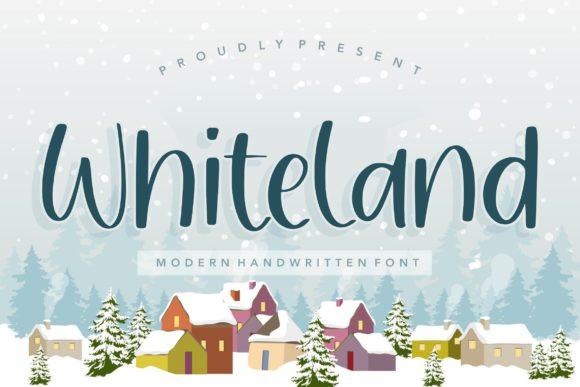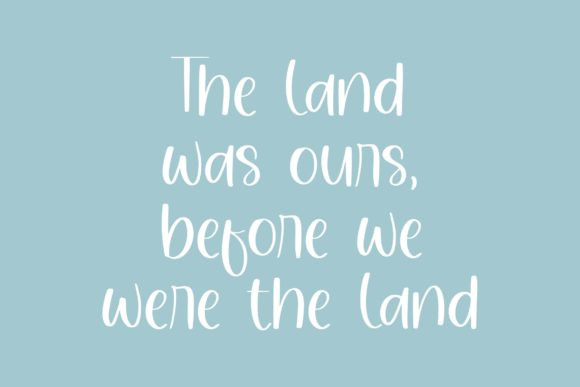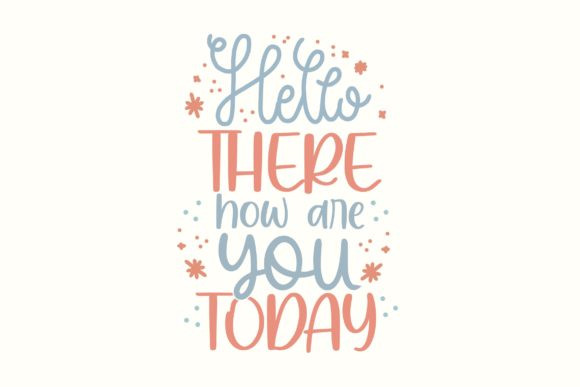
Whiteland Font
Whiteland is a cute handwritten font. Get creative with its childlike playfulness, and use it to brighten up any kids and school project!